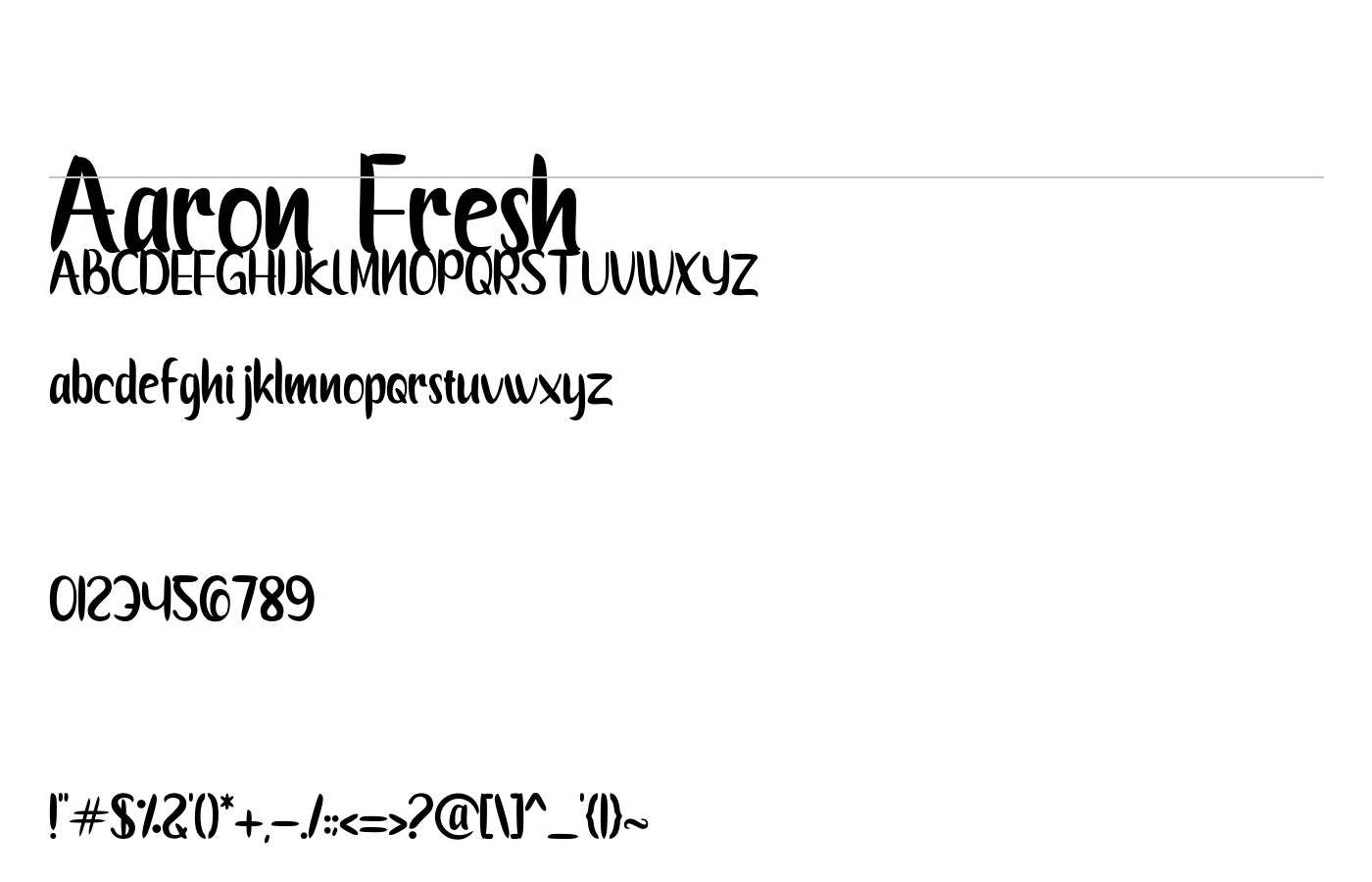
Aaron Fresh is a playful, hand-drawn sans serif font with a tall, narrow structure and lively irregular strokes that give it a friendly, casual feel. Its unique letterforms and full character set make it perfect for fun, informal designs such as children’s books, creative branding, and eye-catching headlines. This font works well where a warm, approachable personality is desired.
Aaron Fresh Font